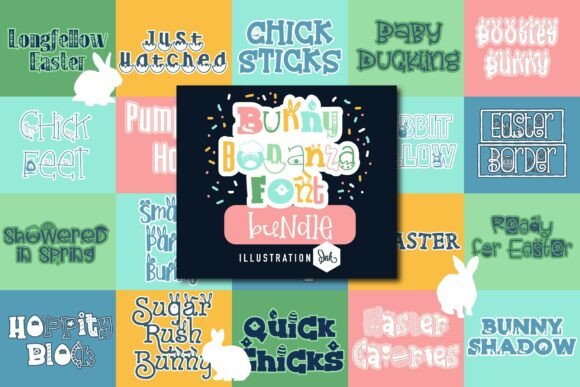
Upgrade Your Brand with Bunny Bonanza Bundle
Last spring, I found myself staring at my bakery’s packaging, wondering if there was a way to make it feel more inviting. My cupcakes were delicious, and my pastries were fresh, but the labels looked a bit plain. That’s when I discovered the Bunny Bonanza Bundle. This hand-crafted font collection is full of cute, spring and Easter-inspired designs that immediately made me think about how typography could elevate my brand.
A Font Collection with Personality
The Bunny Bonanza Bundle isn’t just any font package—it’s a charming collection of 20 font families that bring a sense of joy and whimsy to any design project. Each font has a unique character, from playful bunnies to soft floral accents, making it perfect for businesses that want to stand out with a friendly, approachable vibe.
I chose this bundle because it matched the warm and welcoming atmosphere of my bakery. The fonts felt like they belonged in a world where customers would smile before even taking their first bite.
Using Fonts to Build a Stronger Brand Identity
Typography plays a huge role in shaping how people see your brand. It affects readability, trustworthiness, and even the emotional response your audience has. When I applied the Bunny Bonanza fonts to my product labels, menus, and social media posts, the difference was noticeable. Everything looked more cohesive and professional.
Here are a few ways I used the bundle:
- Product Labels: I redesigned my cupcake boxes using one of the bolder, more decorative fonts from the bundle. It made the names of each flavor pop and feel more special.
- Social Media Graphics: For Instagram posts, I paired a cursive font with a clean sans serif typeface. It helped keep my content both eye-catching and easy to read on mobile screens.
- Thank-You Cards: I used a softer, handwritten-style font for thank-you notes to customers. It added a personal touch that made them feel appreciated.
Where Can You Use Bunny Bonanza Bundle?
This font bundle is incredibly versatile. Whether you're working on logo design, packaging design, business cards, or website banners, the Bunny Bonanza Bundle can help your brand look more polished and consistent. I’ve found it especially useful for display text, headlines, and decorative accents.
For example, I used one of the more elegant script fonts for my café menu headings, which gave the whole menu a more refined look. Meanwhile, a fun, rounded font worked well for promotional flyers and digital ads.
It’s important to consider readability when choosing a font, especially for small labels or mobile screens. I made sure to pair the more decorative fonts with simpler ones for body text, so everything remained easy to read while still feeling stylish.
Tips for Pairing Fonts
Font pairing can be tricky, but the Bunny Bonanza Bundle makes it easier. Here are a few simple combinations I've tried that work really well:
- Cute Script + Clean Sans Serif: Great for logos or headers that need to feel both fun and professional.
- Whimsical Display Font + Elegant Serif: Perfect for invitations or packaging titles that want to stand out without being too busy.
- Handwritten Style + Modern Typography: Ideal for social media graphics that want to feel personal yet contemporary.
Why Typography Matters for Your Business
Choosing the right font might seem like a small detail, but it can have a big impact on your brand. A well-chosen typeface helps create visual consistency across all your materials, making your business more recognizable and trustworthy.
Since switching to the Bunny Bonanza Bundle, I’ve noticed more positive feedback from customers. They comment on how much they love the look of my packaging and how it feels more aligned with the experience of enjoying my baked goods.
If you’re looking to upgrade your brand visuals, don’t underestimate the power of good typography. With the right font choices, you can create a stronger connection with your audience and make your business stand out in a crowd.